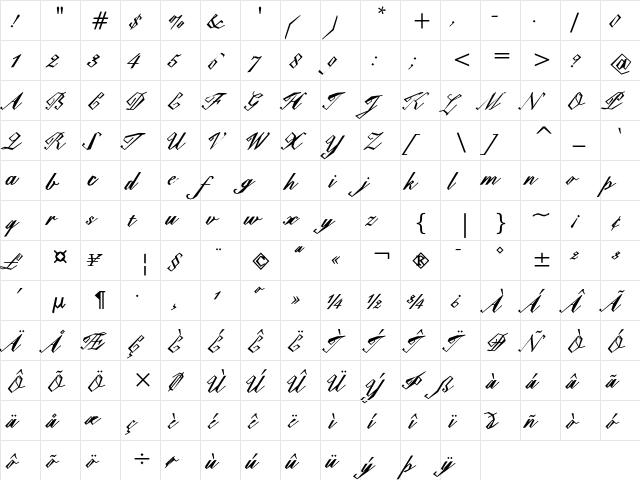
Epaulet Regular
Design Context for Epaulet Typeface
Epaulet is a composed and adaptable typeface that performs quietly and consistently across a wide range of design contexts.